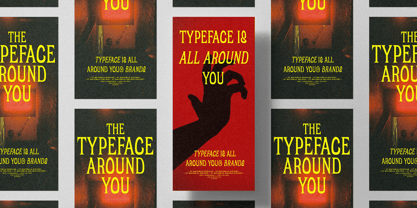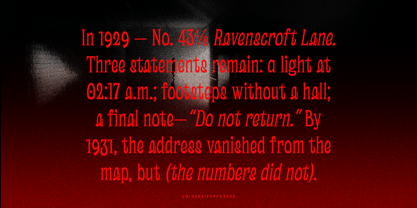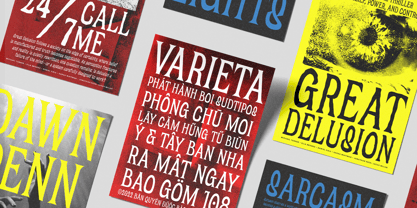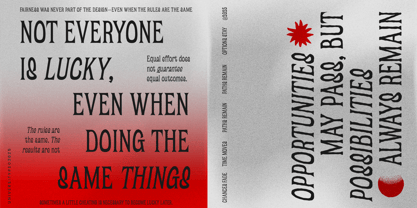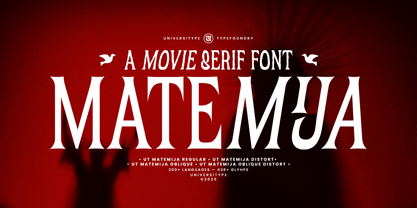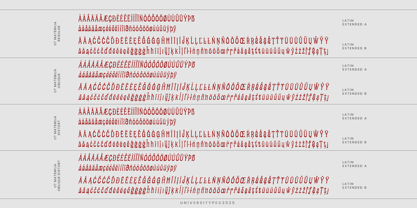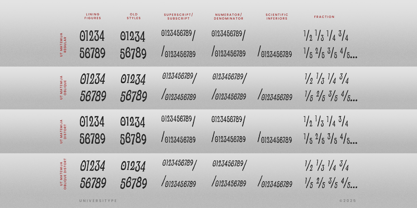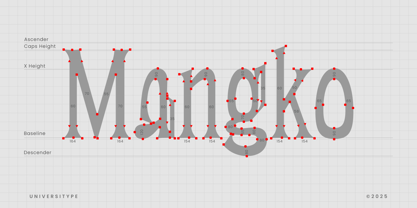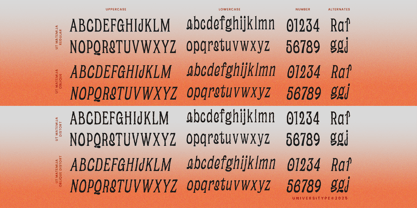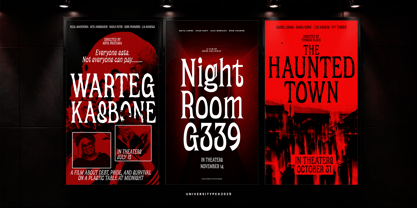
UT Matemija
UT Matemija is a cinematic serif typeface designed for dramatic titles, expressive headlines, and story-driven typography. Drawing inspiration from classic movie title cards and psychological horror cinema, it blends sharp wedge serifs with organic, subtly distorted curves to create a tense yet controlled visual rhythm. The design balances vintage influence with modern execution. High contrast strokes give it presence, while the softened curves and warped details add emotion and atmosphere. UT Matemija is built for display use, where mood, character, and impact take priority. The family includes four styles that allow designers to adjust tone easily, from clean and composed to distorted and unsettling, all while maintaining a consistent typographic voice. Styles Regular Distort Oblique Recommended Use Film posters and title sequences Horror and thriller book covers Editorial headlines Album artwork Branding with a cinematic or narrative focus Features 4 display styles 300+ glyphs Extended Latin language support High-contrast serif construction Distinctive lowercase forms OpenType Features Standard ligatures Stylistic alternates Case-sensitive punctuation Numerators and denominators UT Matemija is suited for designers who want typography that carries emotion, tension, and a strong sense of atmosphere.
UT Matemija